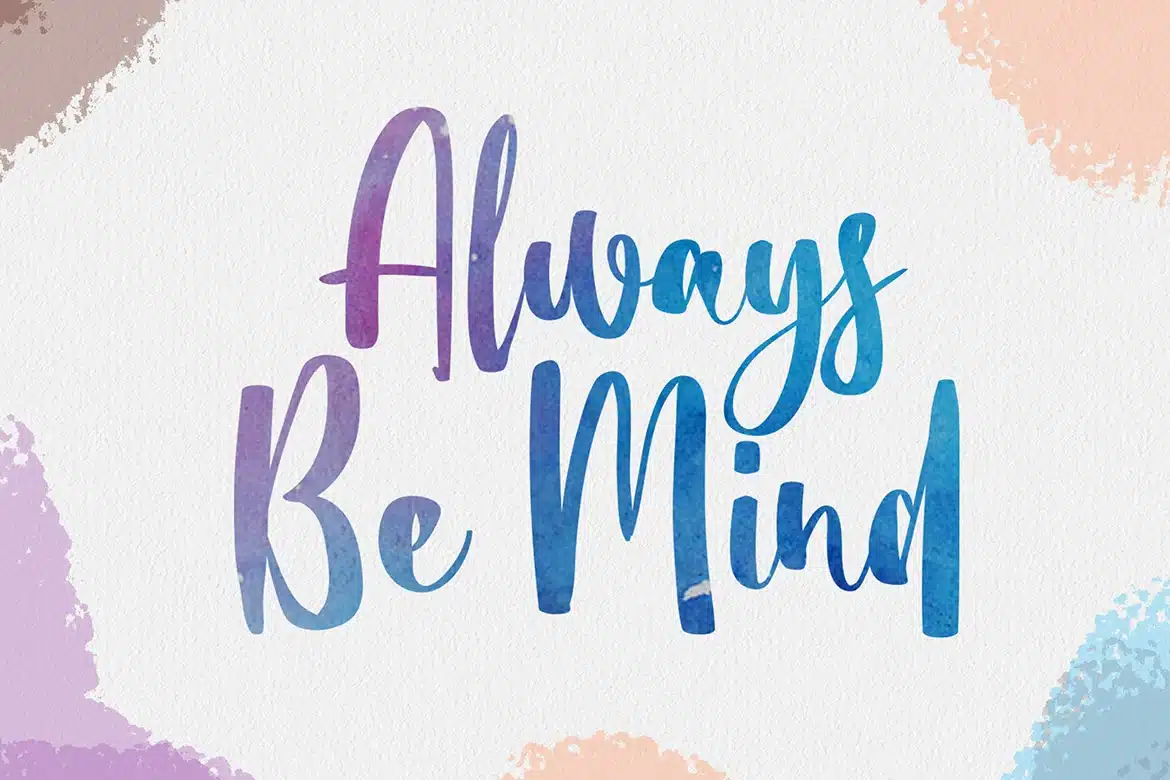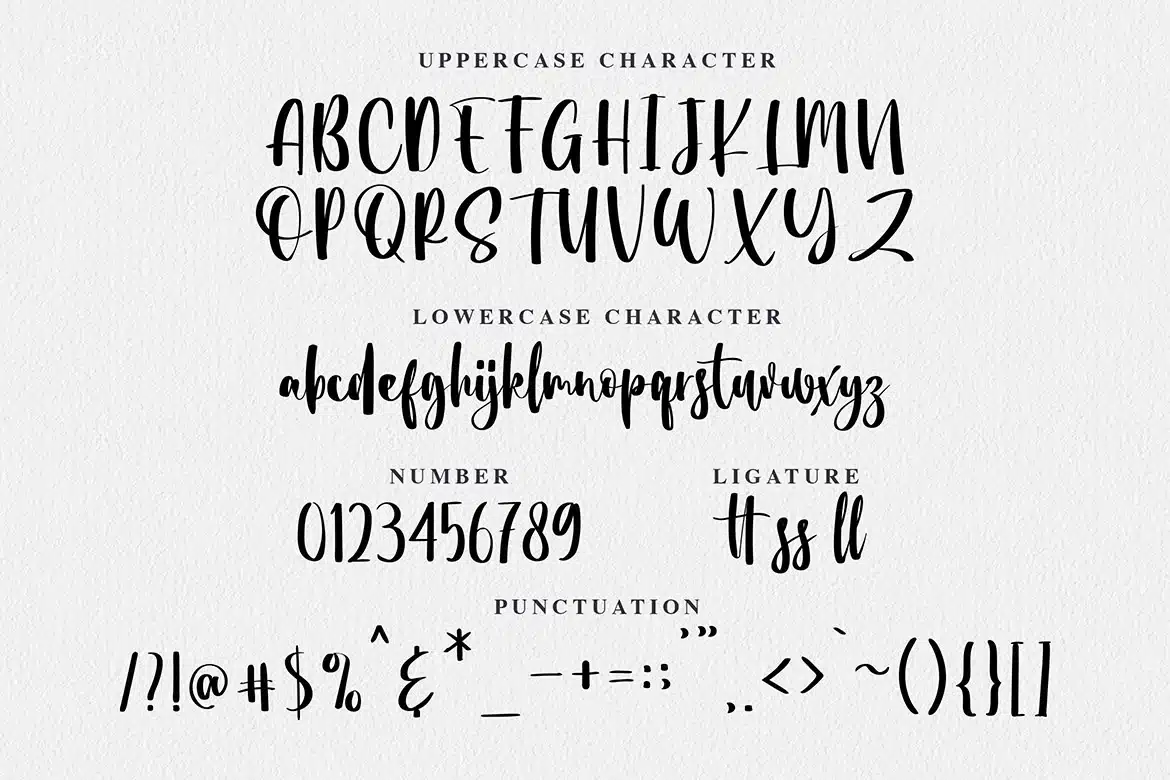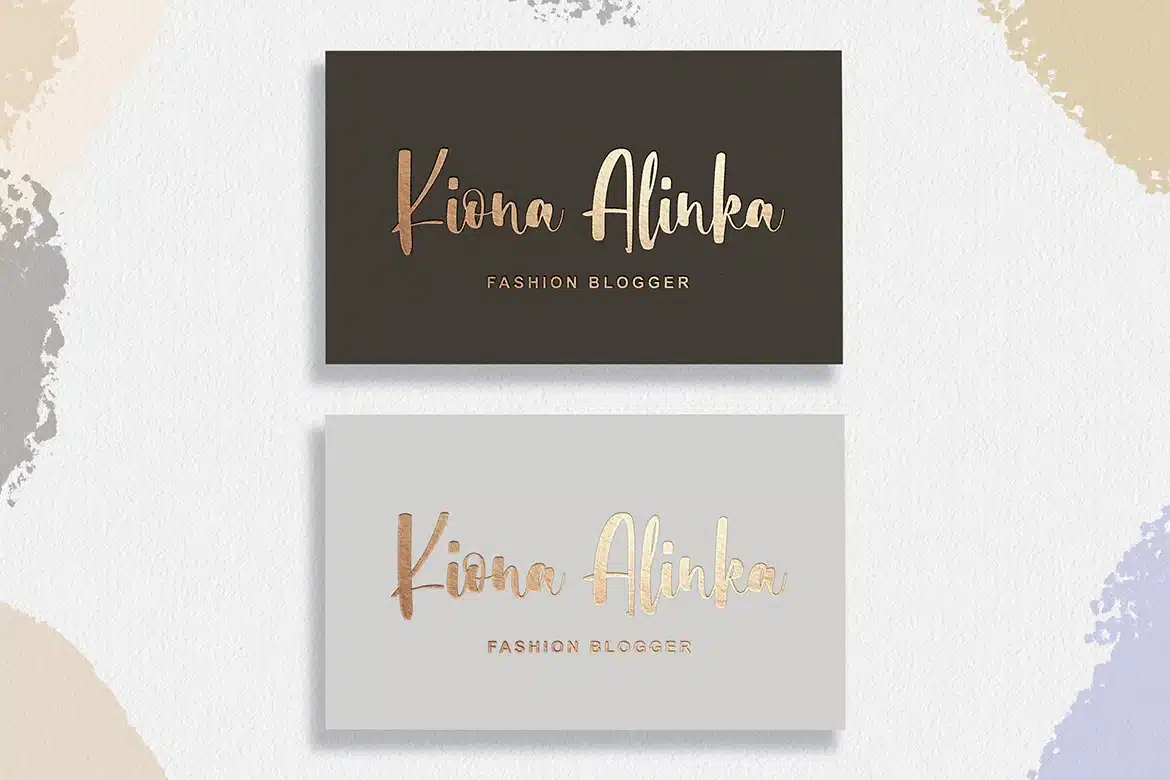
Introducing of our new product the name is Riosetta Bold Modern Script Font. inspired by modern calligraphy and girly calligraphy style, Riosetta is good for logotype, wedding invitation design, badge, headline, signature, packaging and any more.